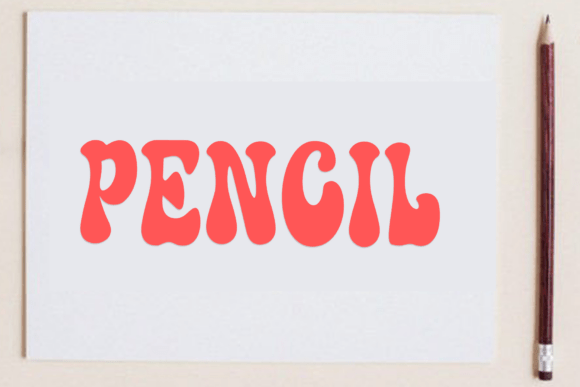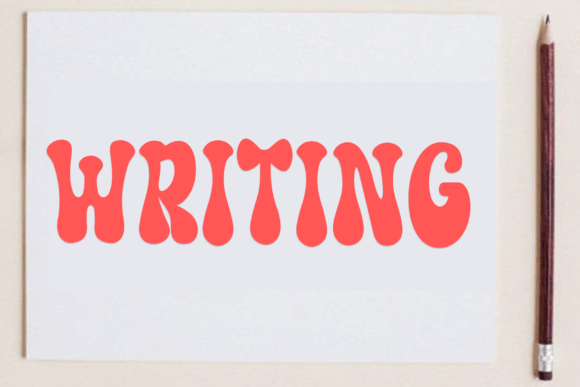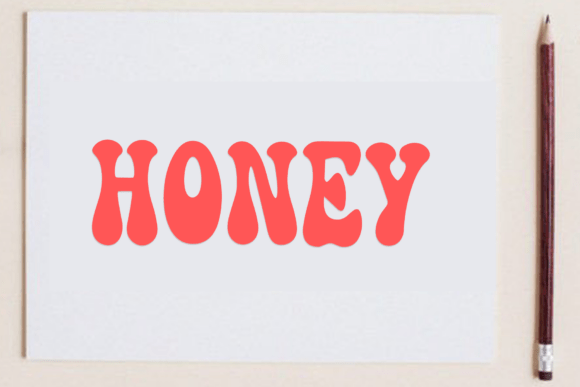
Introduction to Pump Chunky Font
Pump Chunky is a casual and creative font that exudes warmth and friendliness.
Key Features of Pump Chunky Font
Why Choose Pump Chunky Font?
Pump Chunky Font offers exceptional quality and versatility, making it a valuable addition to your design toolkit. Whether you’re creating for personal projects or commercial use, Pump Chunky Font delivers professional results.